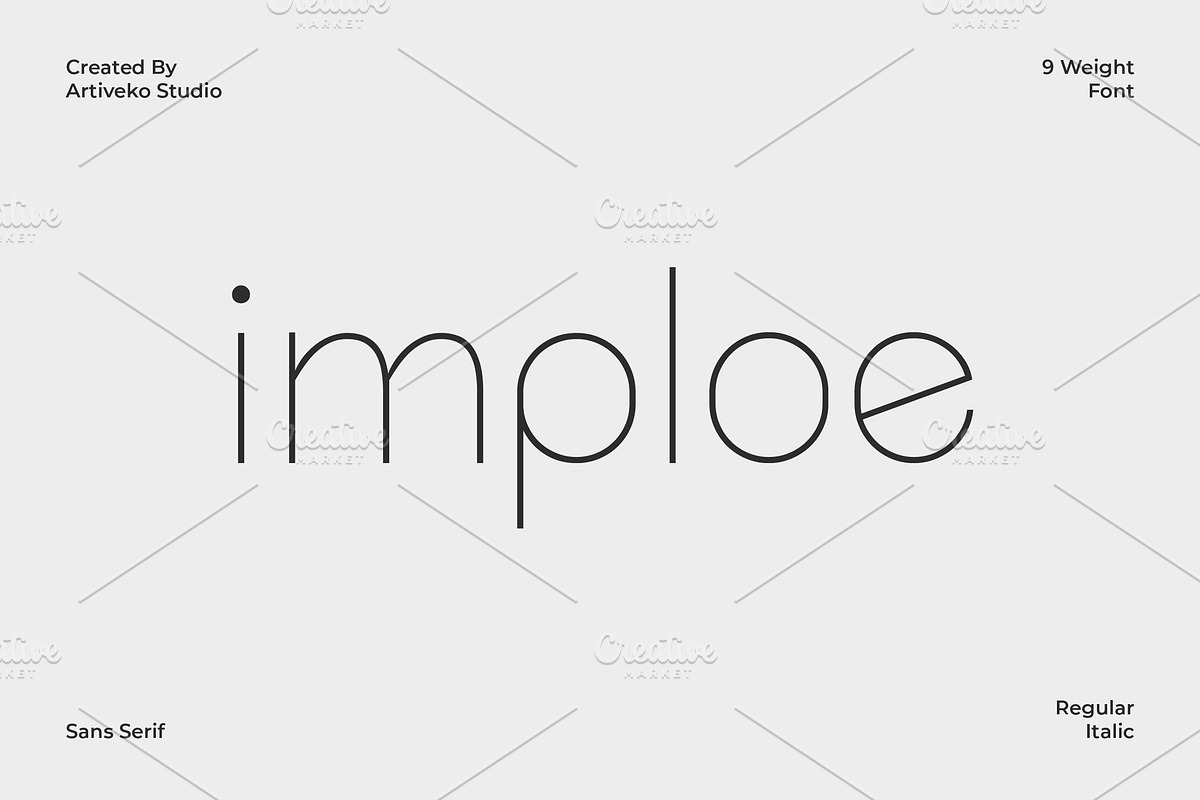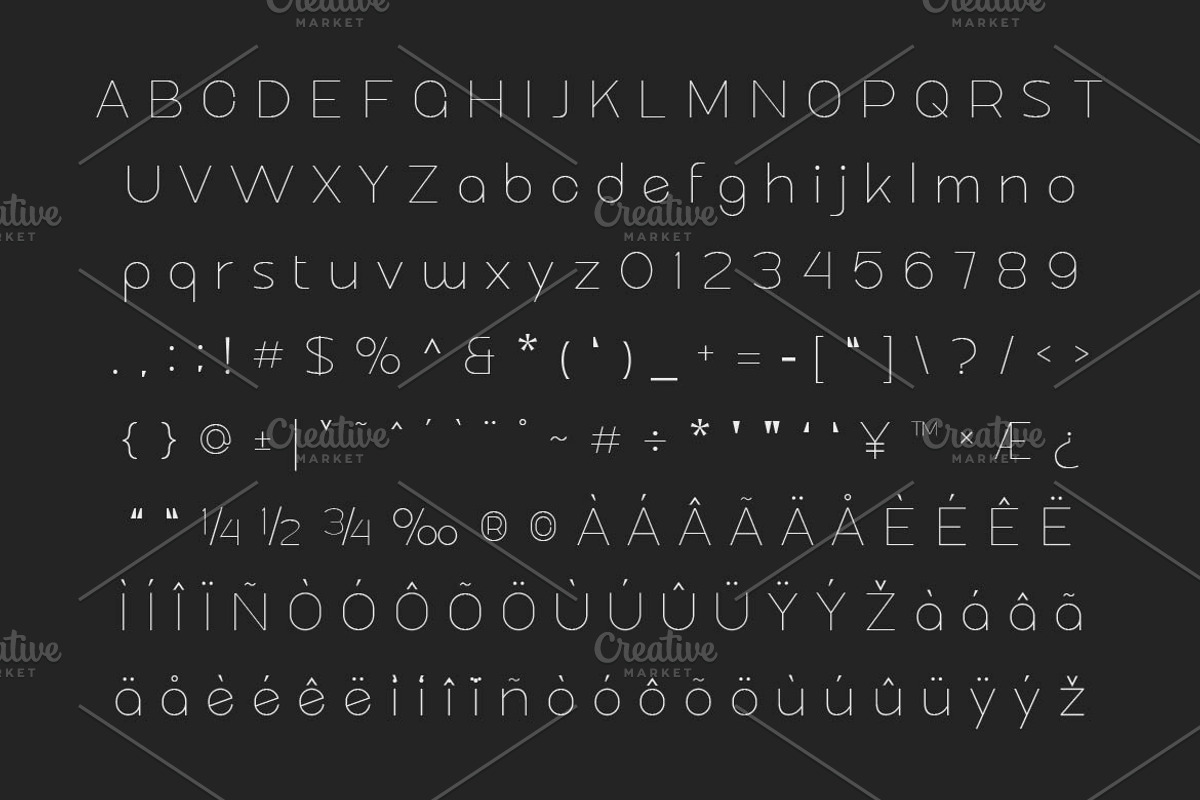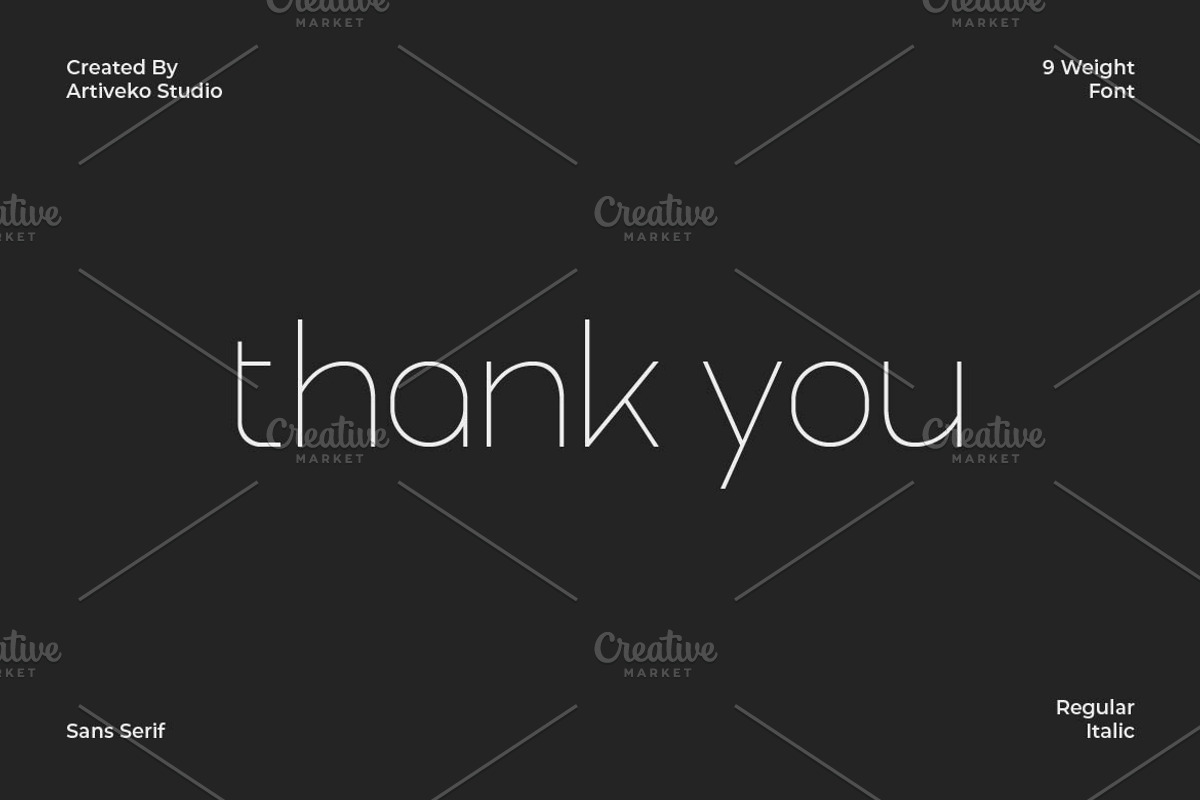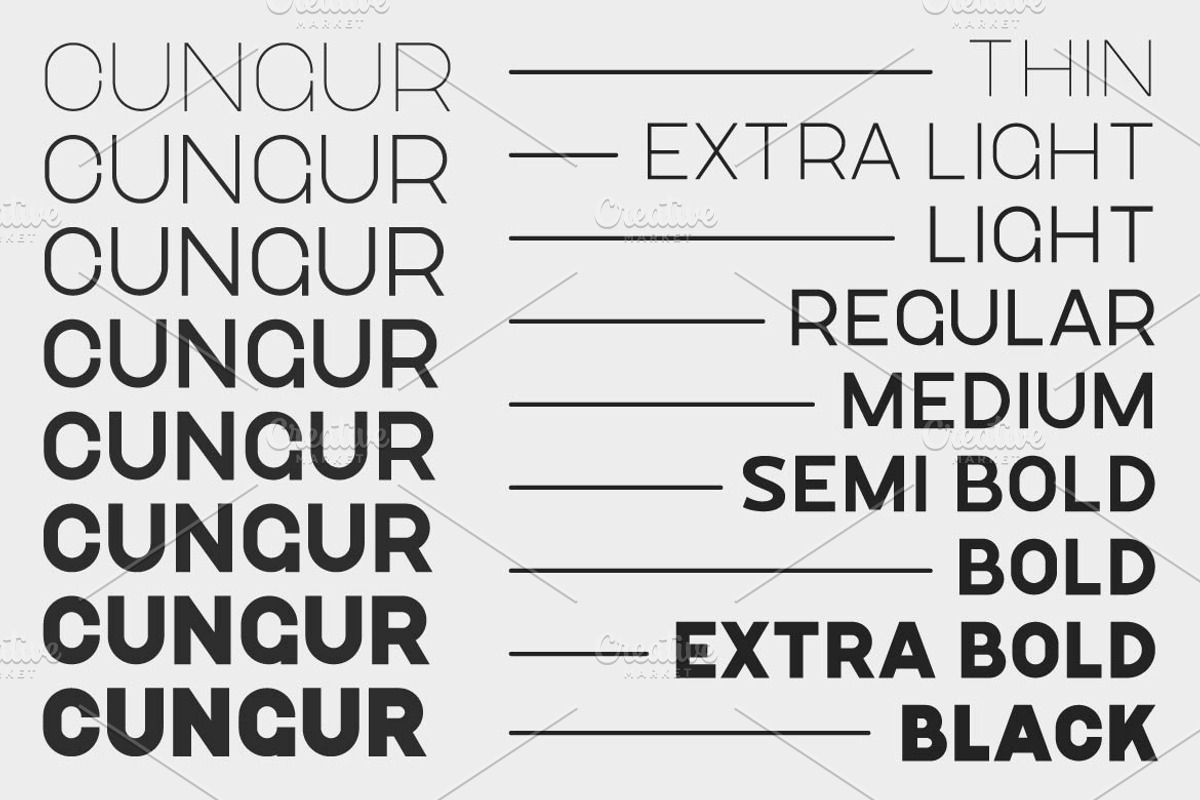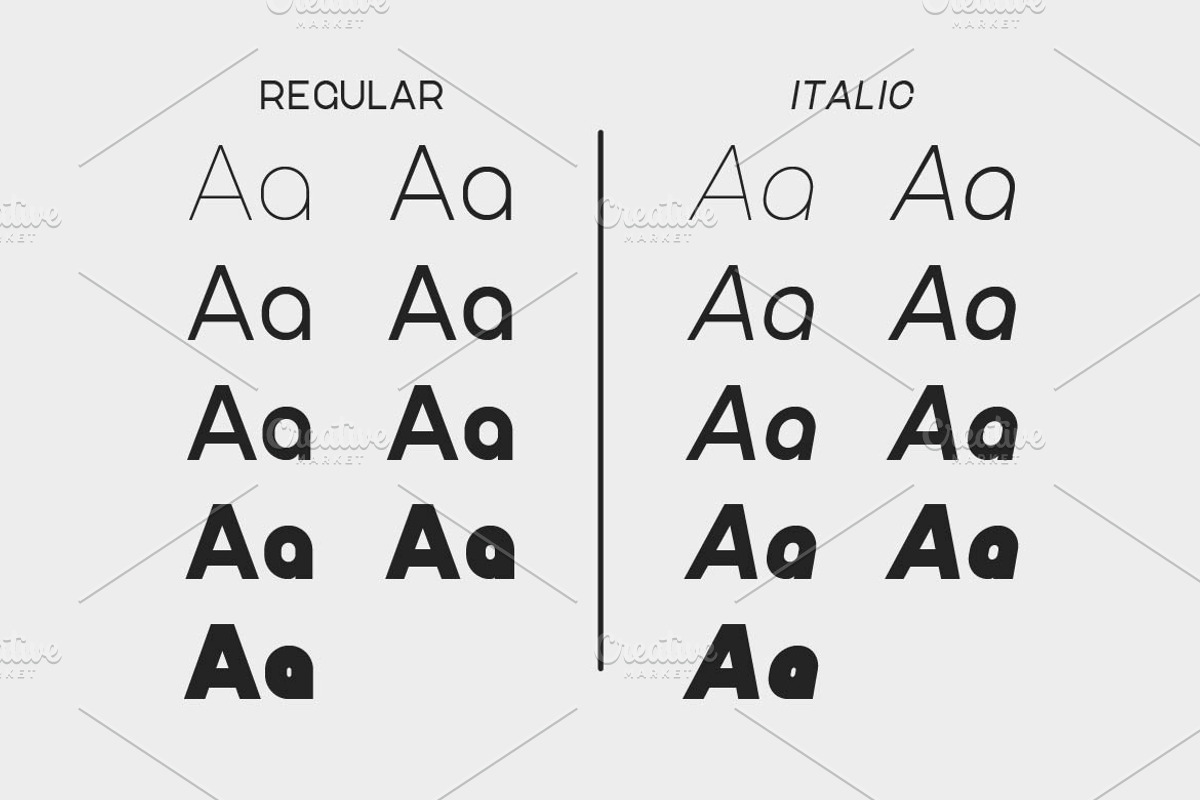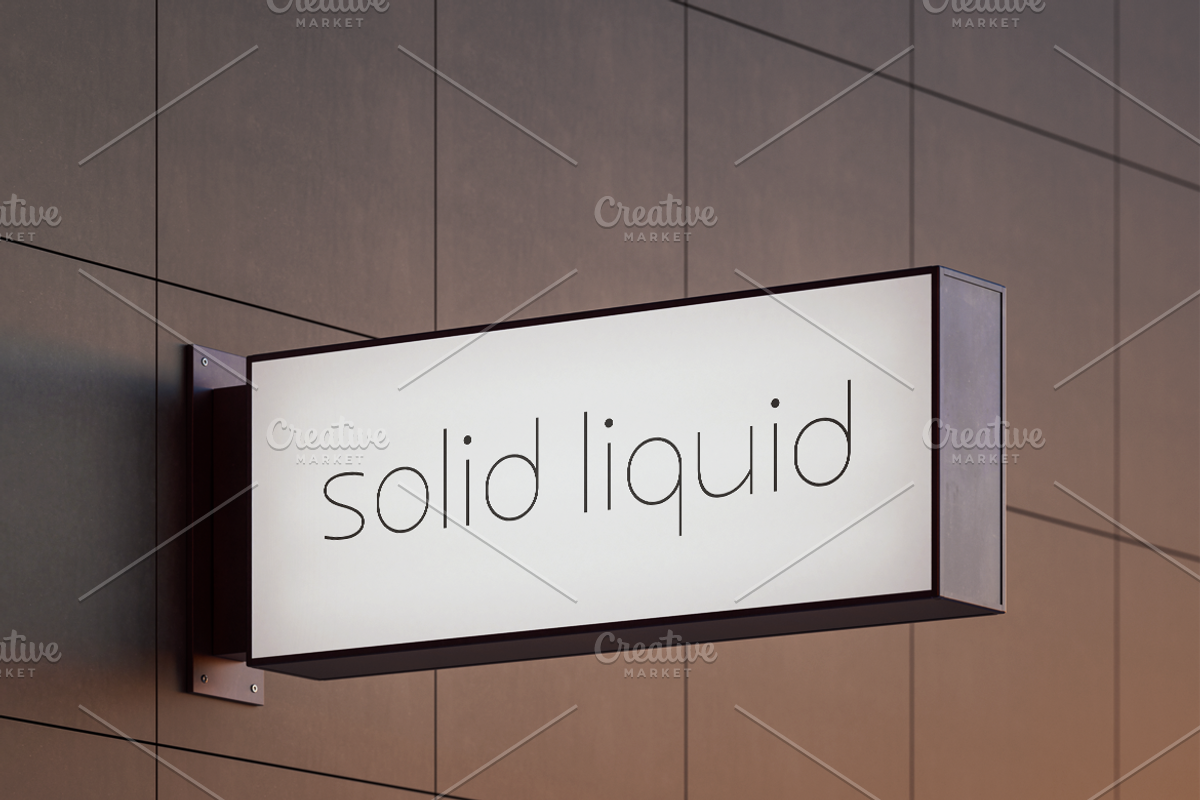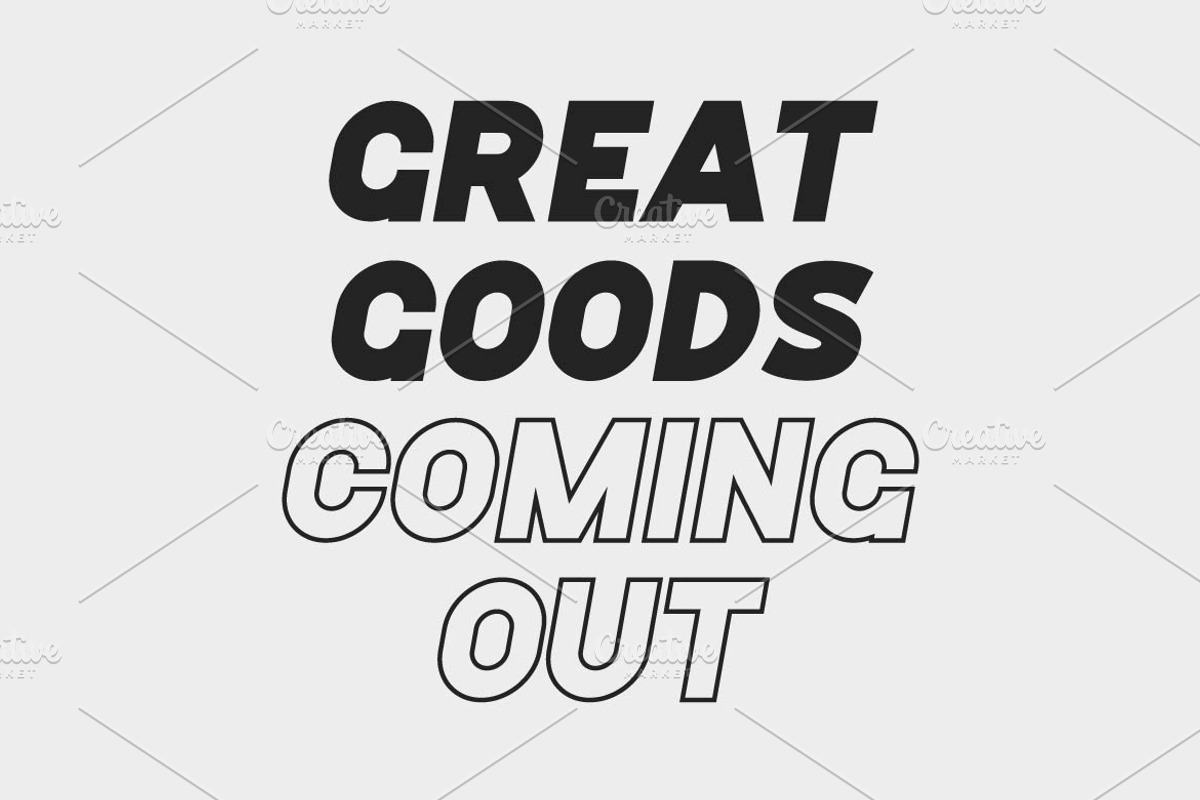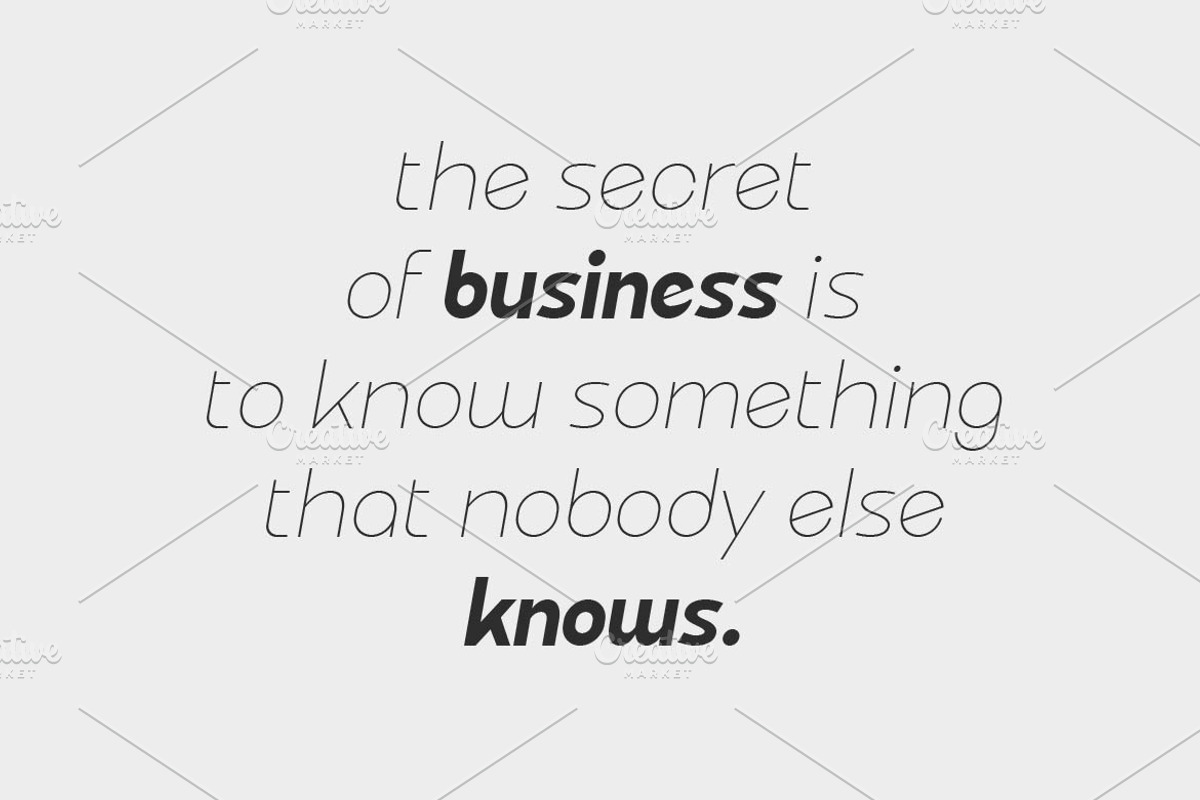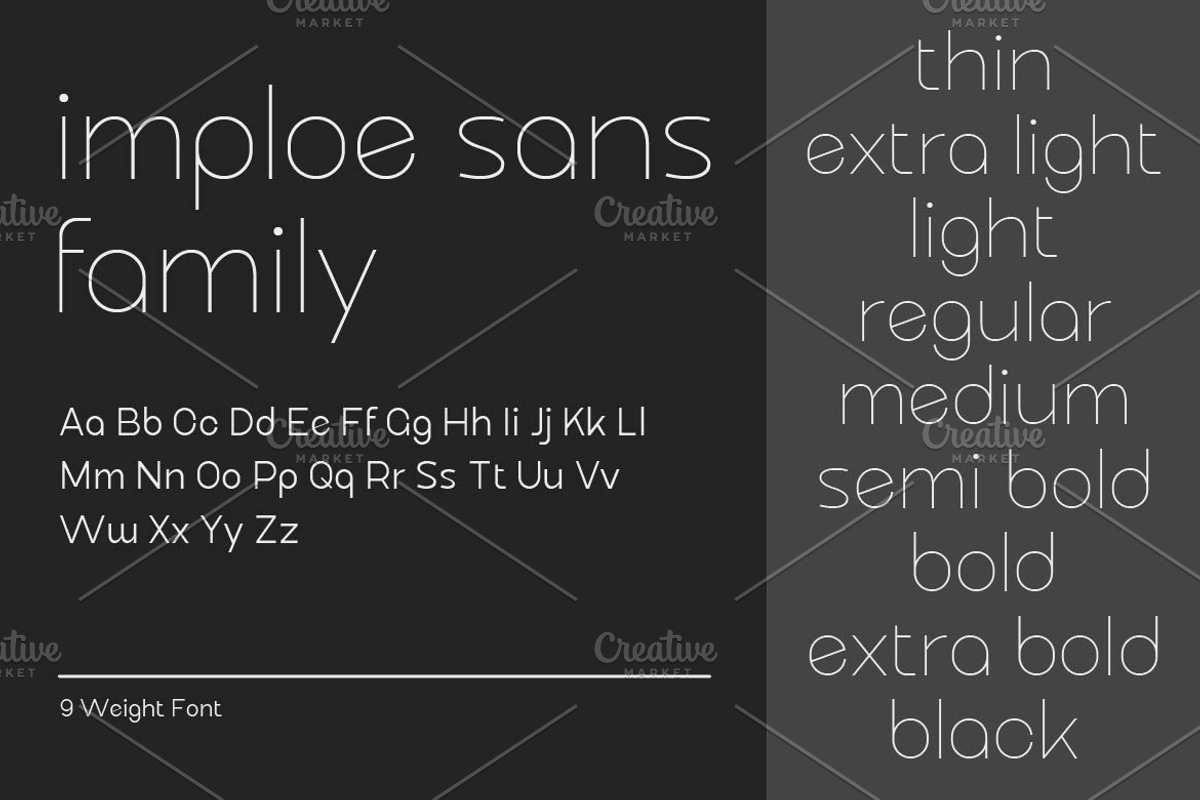
Imploe Modern Sans Font Family
Imploe is a modern sans serif font family crafted for versatility and sophistication. With clean lines, smooth curves, and a contemporary structure, Imploe excels in branding, editorial, web, and UI design. It includes multiple weights, multilingual support, ligatures, and alternates—making it a reliable and stylish choice for both display and text settings across various design projects.